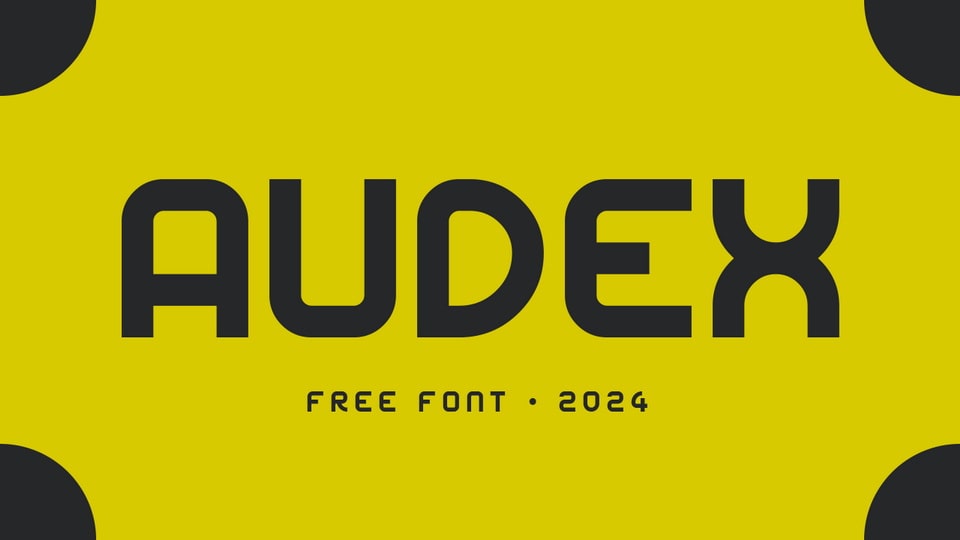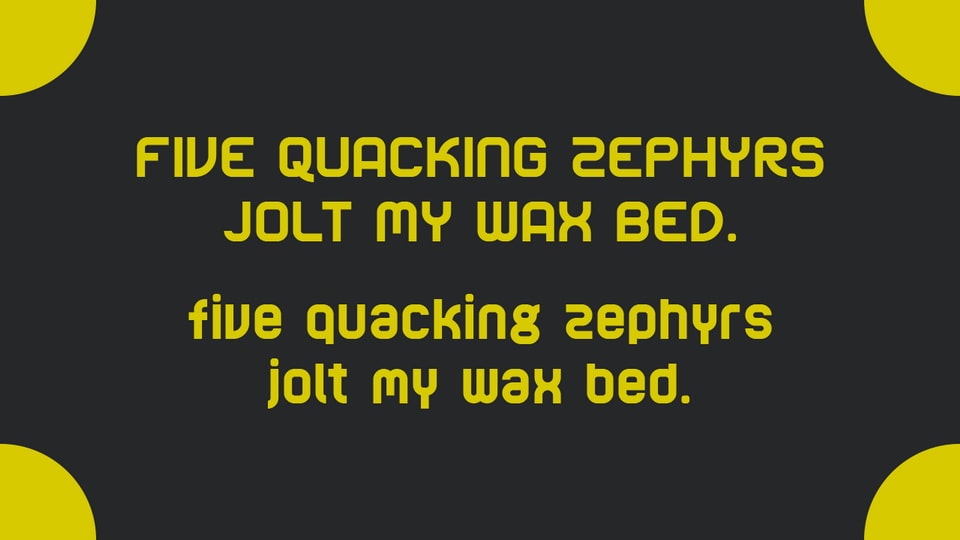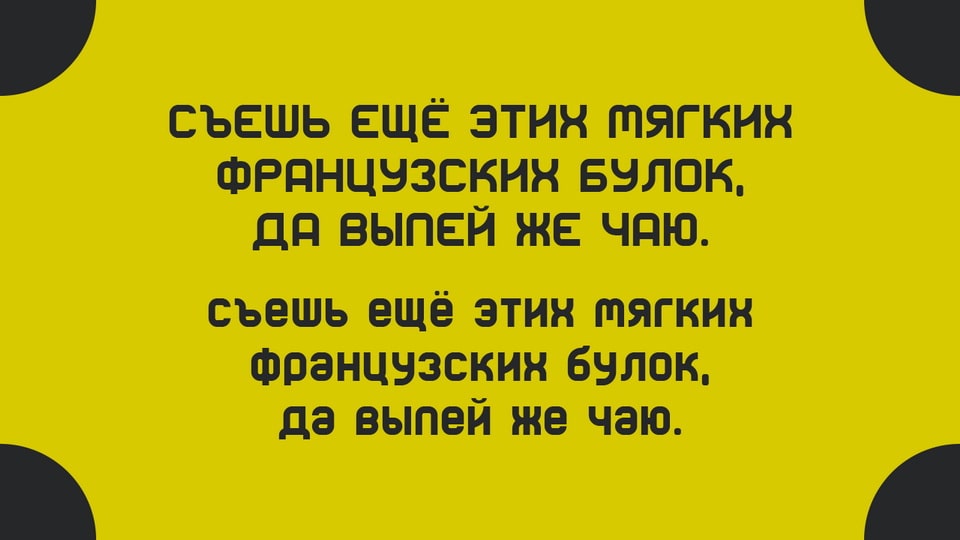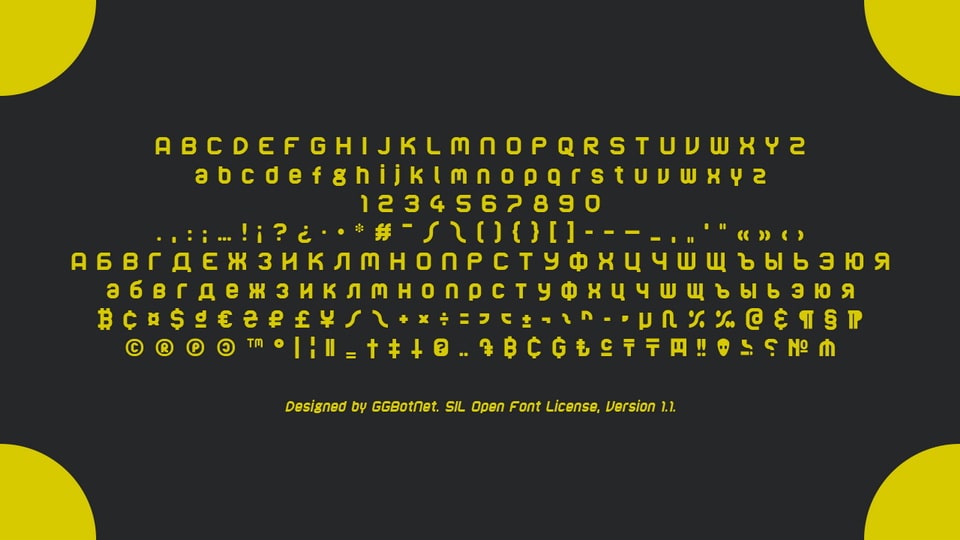
Audex
Audex is a futuristic display typeface with rounded geometric construction, uniform strokes, and a compact techno rhythm. Its letters combine squared curves, softened corners, and simplified internal shapes, giving the alphabet a digital, sci-fi character without heavy ornament. The uppercase feels sturdy and modular, while the lowercase keeps the same rounded structure with clearer word shapes. Spacing is fairly even and works well for short lines, titles, logos, game graphics, tech posters, album art, and interface-inspired headings. Because of its decorative letterforms, Audex is better suited to large display settings than long reading text.